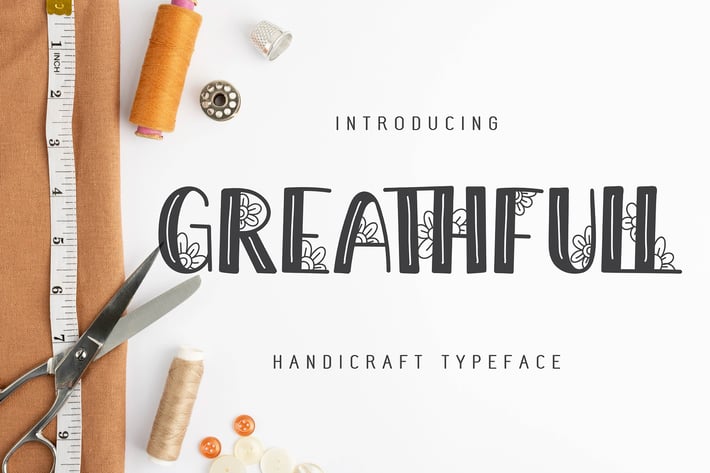
Greathfull | Handicraft Typeface
Greathfull | Handicraft Typeface with a calligraphy style, So beautiful on invitation like greeting cards, branding materials, business cards, quotes, posters, and more!